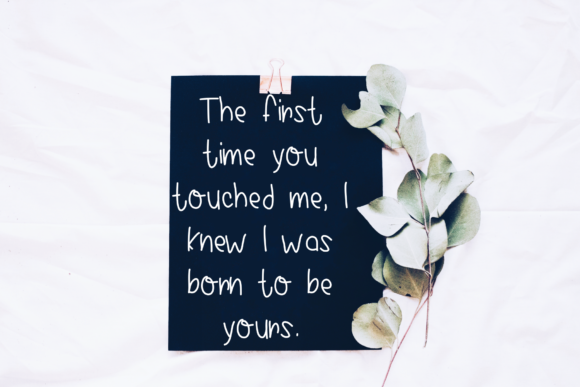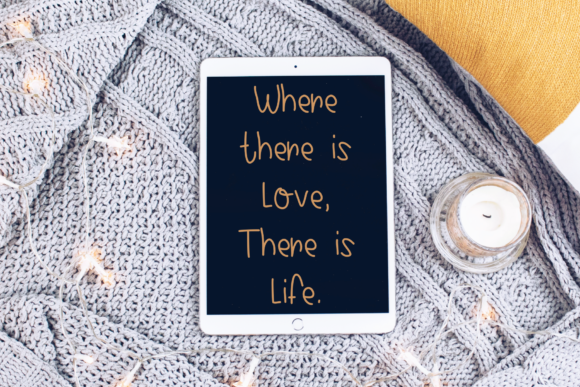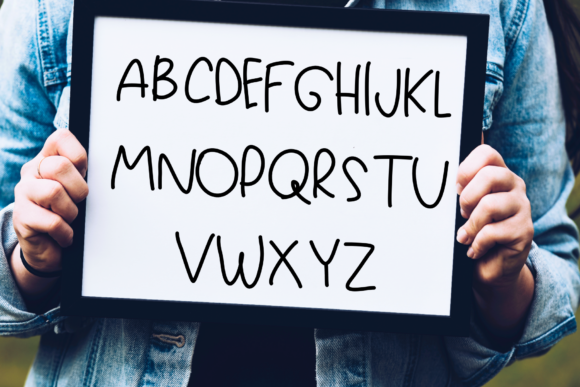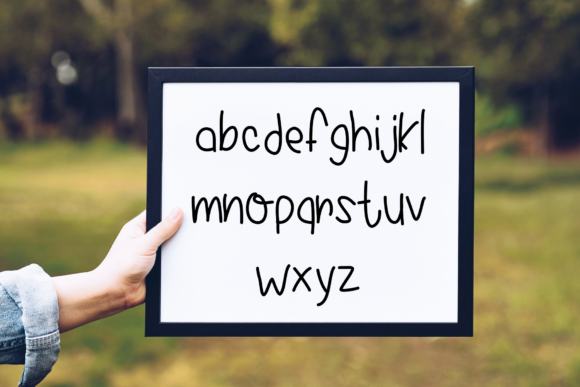
Remington Font
About Remington Font
Remington is a sweet and friendly handwritten font. Its natural and unique style makes it incredibly fitting to a large pool of designs. The only limit is your imagination!